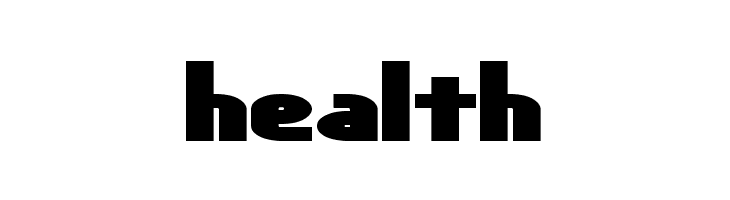
A bold, gothic-inspired font with sharp, angular edges and pointed serifs.
A bold, decorative font with wing-like extensions and a gothic flair.
A futuristic and abstract font with circular and radial elements, ideal for modern designs.
A bold, rounded font with a playful and approachable design.
A rounded, modern font with consistent stroke thickness and smooth curves.
A three-dimensional cubic font with a modern, architectural style.
A bold, geometric font with a modern and impactful design.